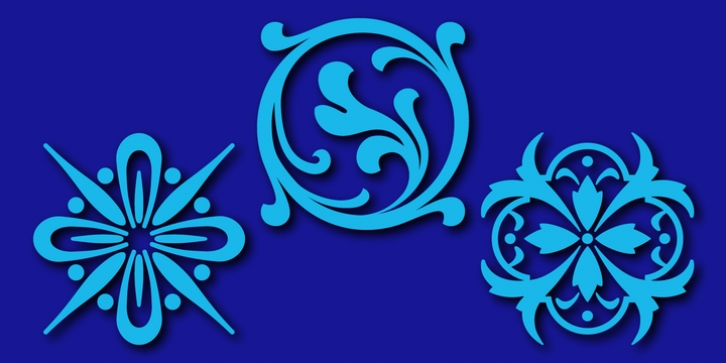
Elegant Ornaments was designed by Gerald Gallo and published by Gerald Gallo. Elegant Ornaments contains 1 style.
Elegant Ornaments was inspired by typographic ornaments from historic sources. There is an assortment of 47 ornaments all located under the character set keys.